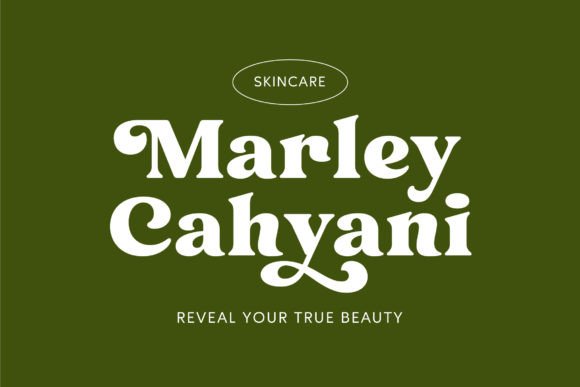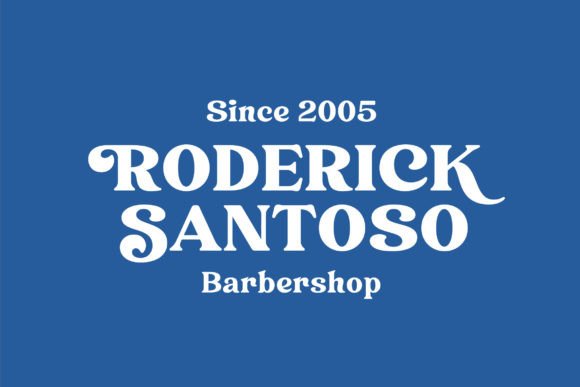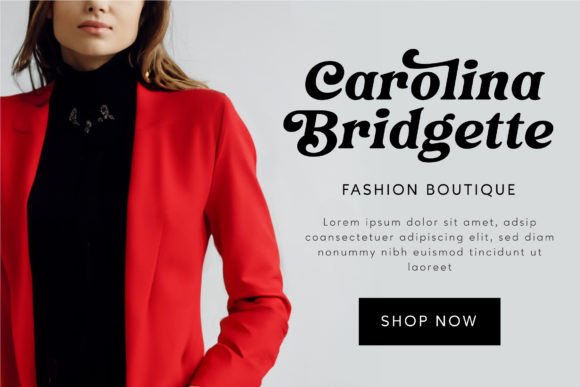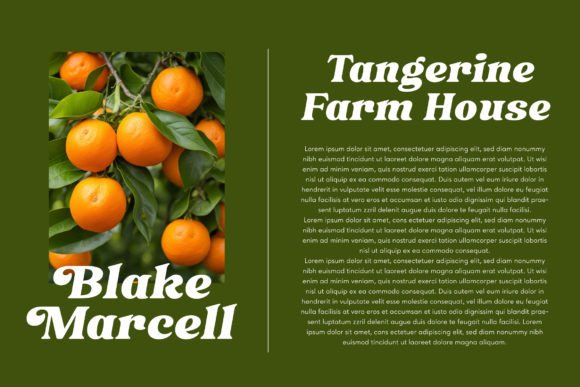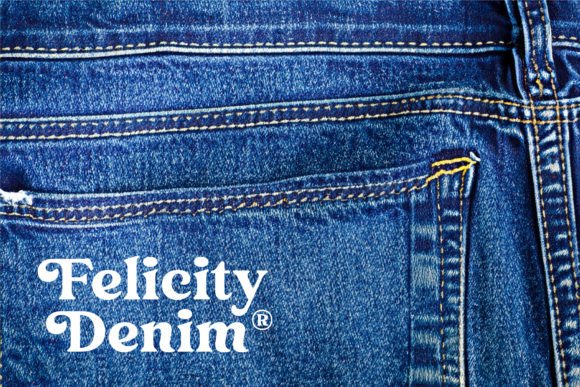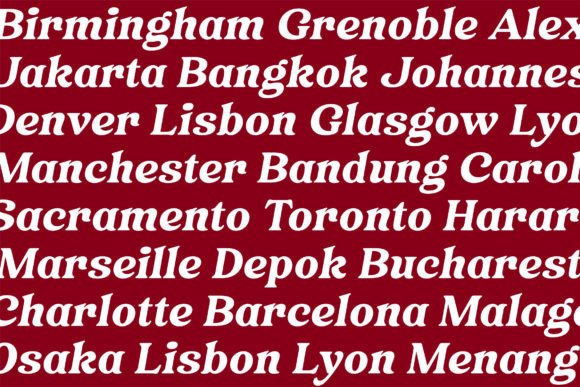
Introducing Heigan Font: A Timeless Vintage Charm for Your Designs
Are you looking for a font that can add a touch of classic elegance and playfulness to your designs? Look no further than Heigan Font, a bold retro font family that’s perfect for bringing a sense of timeless charm to your creative projects. In this article, we’ll explore the features and benefits of Heigan Font, and show you how it can elevate your designs to the next level.
The Characteristics of Heigan Font
Heigan Font is a bold and distinctive font family that boasts strong letterforms, which drive a sense of timeless elegance while adding a playful and cheerful look. Its retro charm is perfect for designers and crafters who want to add a vintage touch to their designs. The font is highly versatile and can be used in a wide range of applications, including logos, headers, headlines, posters, and more.
Key Features of Heigan Font
- Bold and Distinctive Letterforms: Heigan Font features strong and bold letterforms that make a statement. Its distinctive style sets it apart from other fonts and makes it perfect for headlines, titles, and logos.
- Retro Charm: Heigan Font has a classic, vintage feel that’s perfect for designers who want to add a touch of nostalgia to their designs.
- PUA Encoded: Heigan Font is PUA encoded, which means you can access all of the glyphs and swashes with ease. This makes it easy to use and customize the font to suit your needs.
- Highly Versatile: Heigan Font can be used in a wide range of applications, including logos, headers, headlines, posters, and more.
Benefits of Using Heigan Font
So why choose Heigan Font for your designs? Here are just a few benefits of using this amazing font:
- Adds a Touch of Elegance: Heigan Font adds a touch of timeless elegance to your designs, making it perfect for high-end brands and luxury products.
- Perfect for Headlines and Titles: Heigan Font is perfect for headlines and titles, where its bold and distinctive letterforms can make a real impact.
- Easy to Use: Heigan Font is PUA encoded, making it easy to access all of the glyphs and swashes. This means you can focus on designing, rather than getting bogged down in complicated font files.
- Stand Out from the Crowd: Heigan Font is a unique and distinctive font that will help your designs stand out from the crowd. Its retro charm and bold letterforms make it perfect for designers who want to create something truly memorable.
How to Use Heigan Font in Your Designs
Heigan Font is easy to use and can be incorporated into your designs in a variety of ways. Here are a few ideas to get you started:
- Logos and Branding: Use Heigan Font to create a bold and memorable logo that sets your brand apart.
- Headlines and Titles: Heigan Font is perfect for headlines and titles, where its bold and distinctive letterforms can make a real impact.
- Posters and Flyers: Use Heigan Font to create eye-catching posters and flyers that grab attention.
- Web Design: Heigan Font can be used in web design to create bold and memorable headings and titles.
In conclusion, Heigan Font is a bold and distinctive font family that’s perfect for designers and crafters who want to add a touch of vintage charm to their designs. Its strong and bold letterforms drive a sense of timeless elegance, while its playful and cheerful look adds a touch of whimsy. With its PUA encoding and highly versatile design, Heigan Font is the perfect choice for a wide range of applications, from logos and branding to headlines and titles. So why wait? Try Heigan Font today and see how it can elevate your designs to the next level!